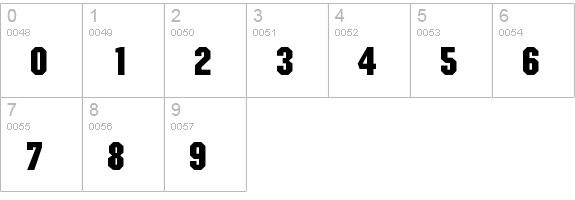
M651-Deco-Regular is the standard, neutral variant in the M651 typeface family \xE2\x80\x94 well suited to general body text, paragraphs, and standard typographic work.
M651-Deco-Regular is a stylish and sophisticated font that combines modern elements with a touch of elegance. Its clean lines and geometric shapes give it a timeless appeal, making it perfect for a variety of design projects. This versatile font is ideal for branding, packaging, invitations, and more. And the best part? M651-Deco-Regular is available for free download at FontsMarket.com! Whether you are a professional designer or a DIY enthusiast, this font is a valuable addition to your collection. Its sleek design and unique flair will make your projects stand out from the crowd. Don't miss out on the opportunity to enhance your designs with this stunning font – download M651-Deco-Regular today and let your creativity shine!